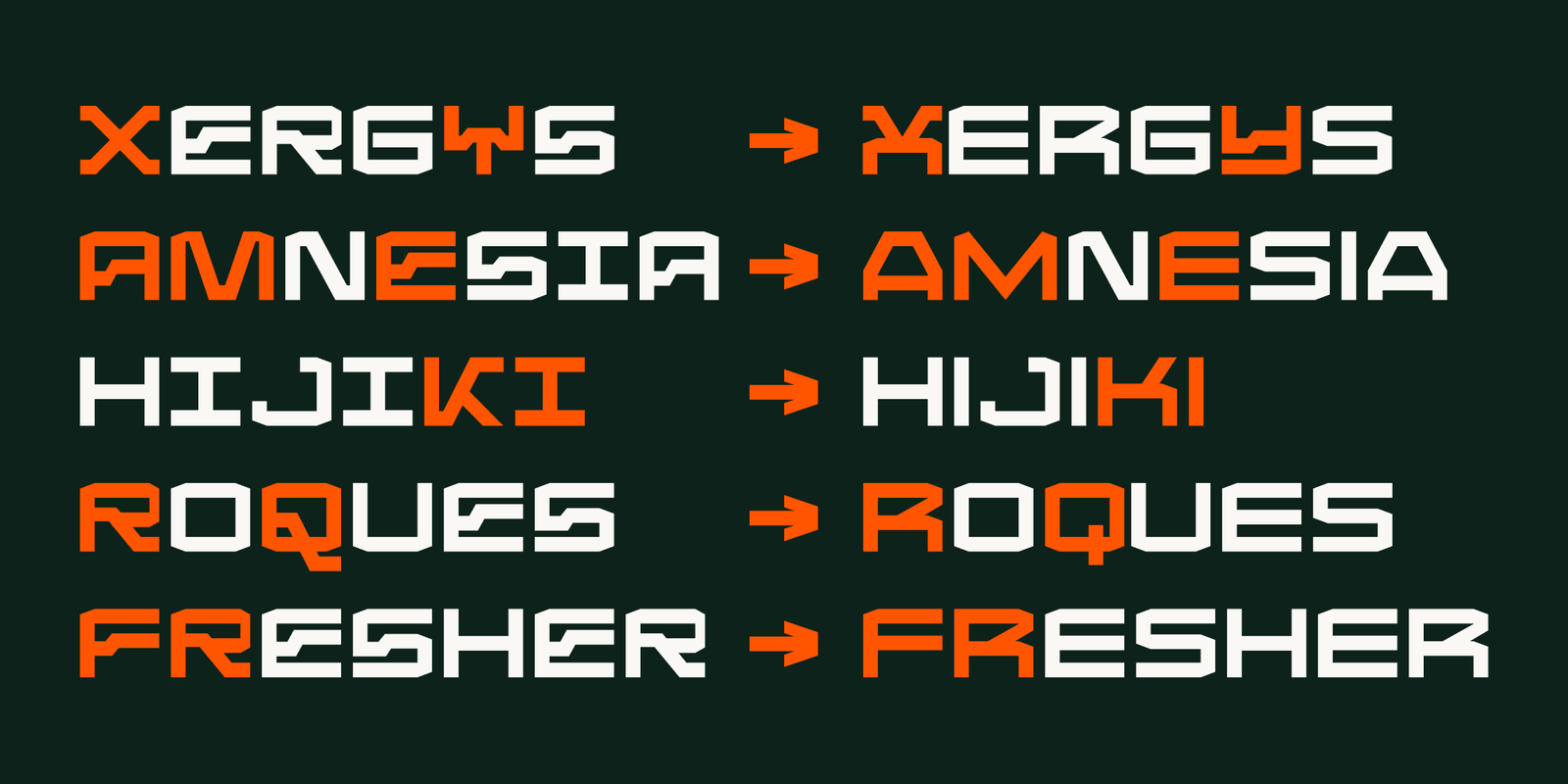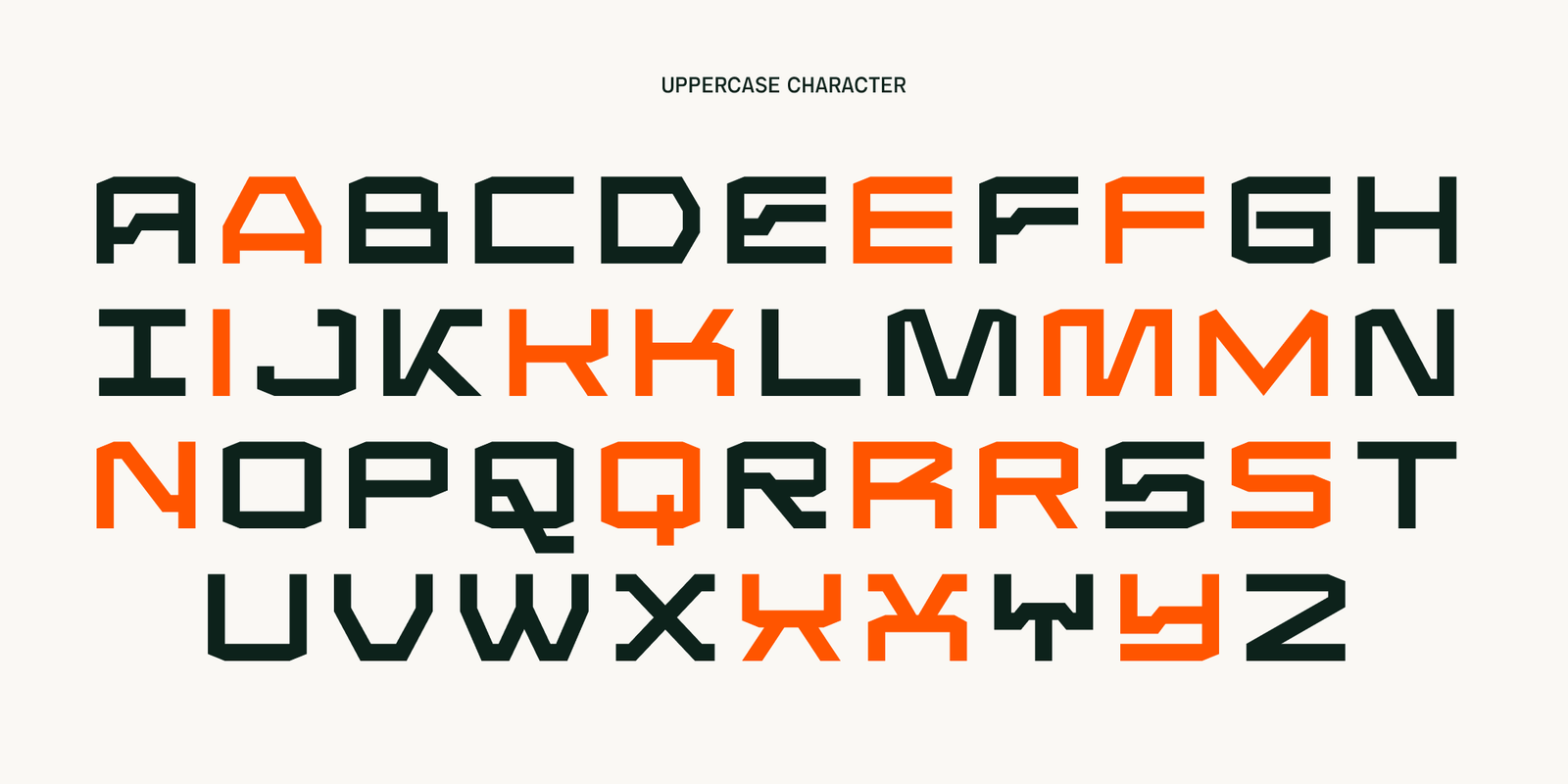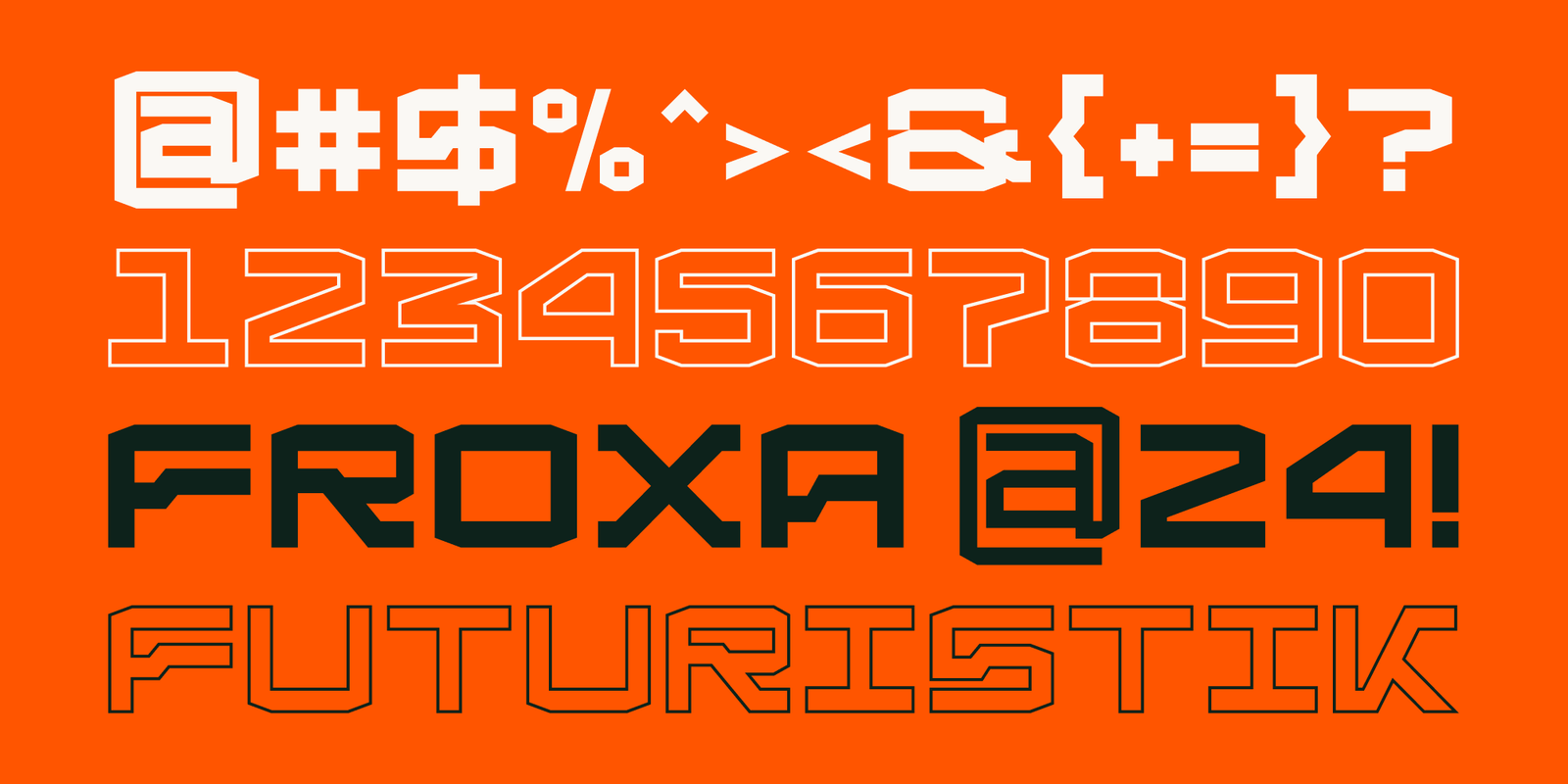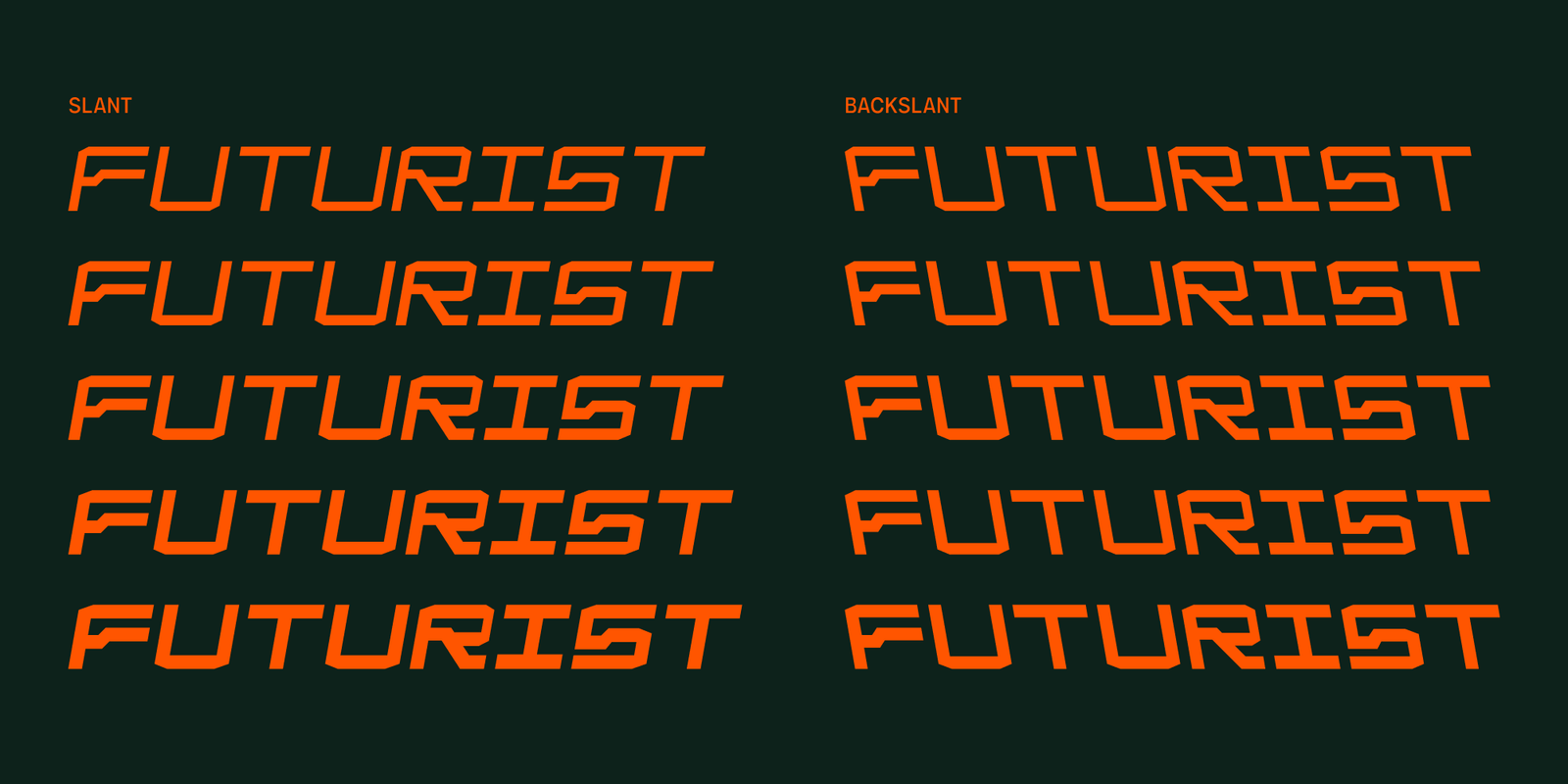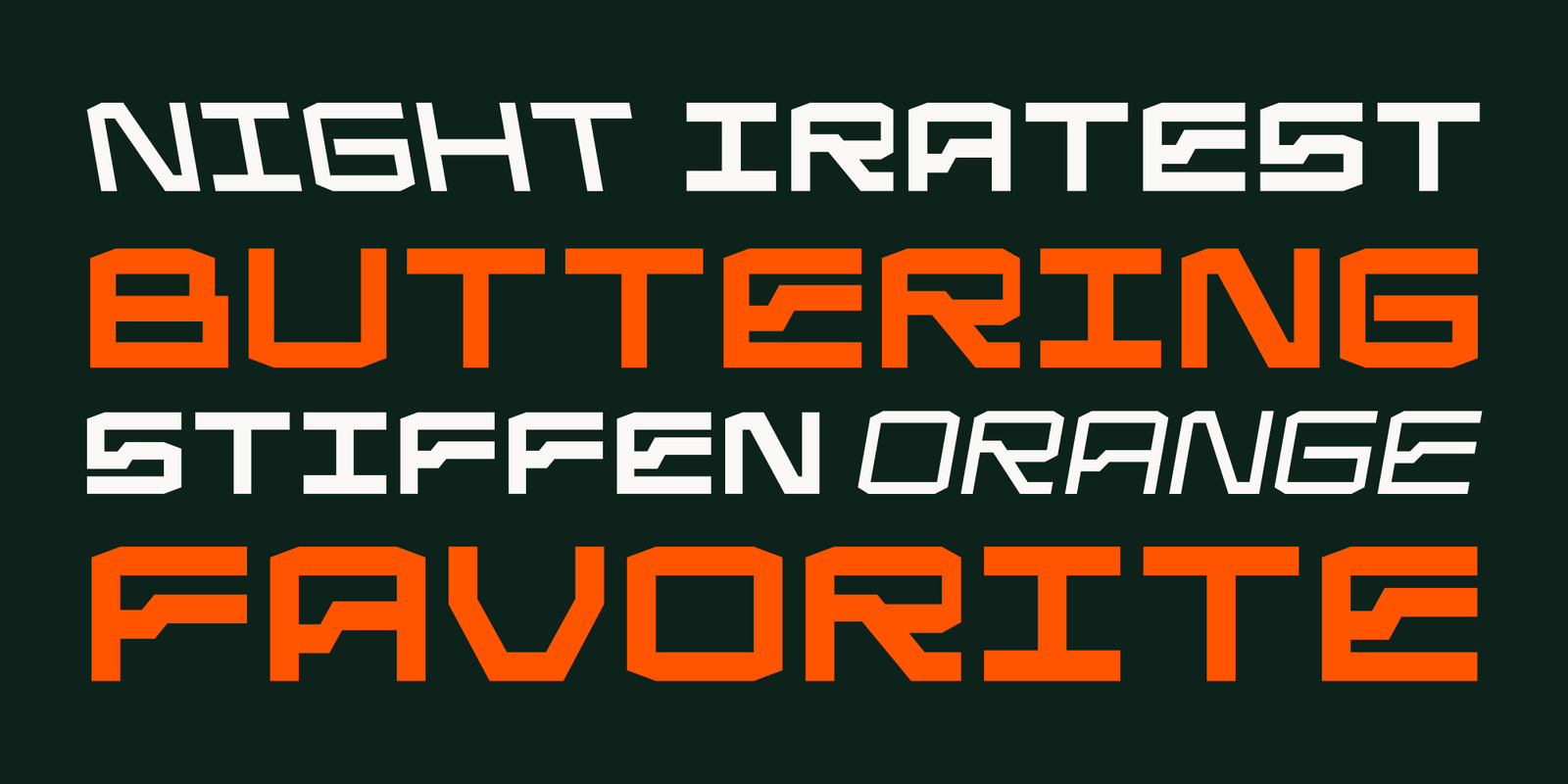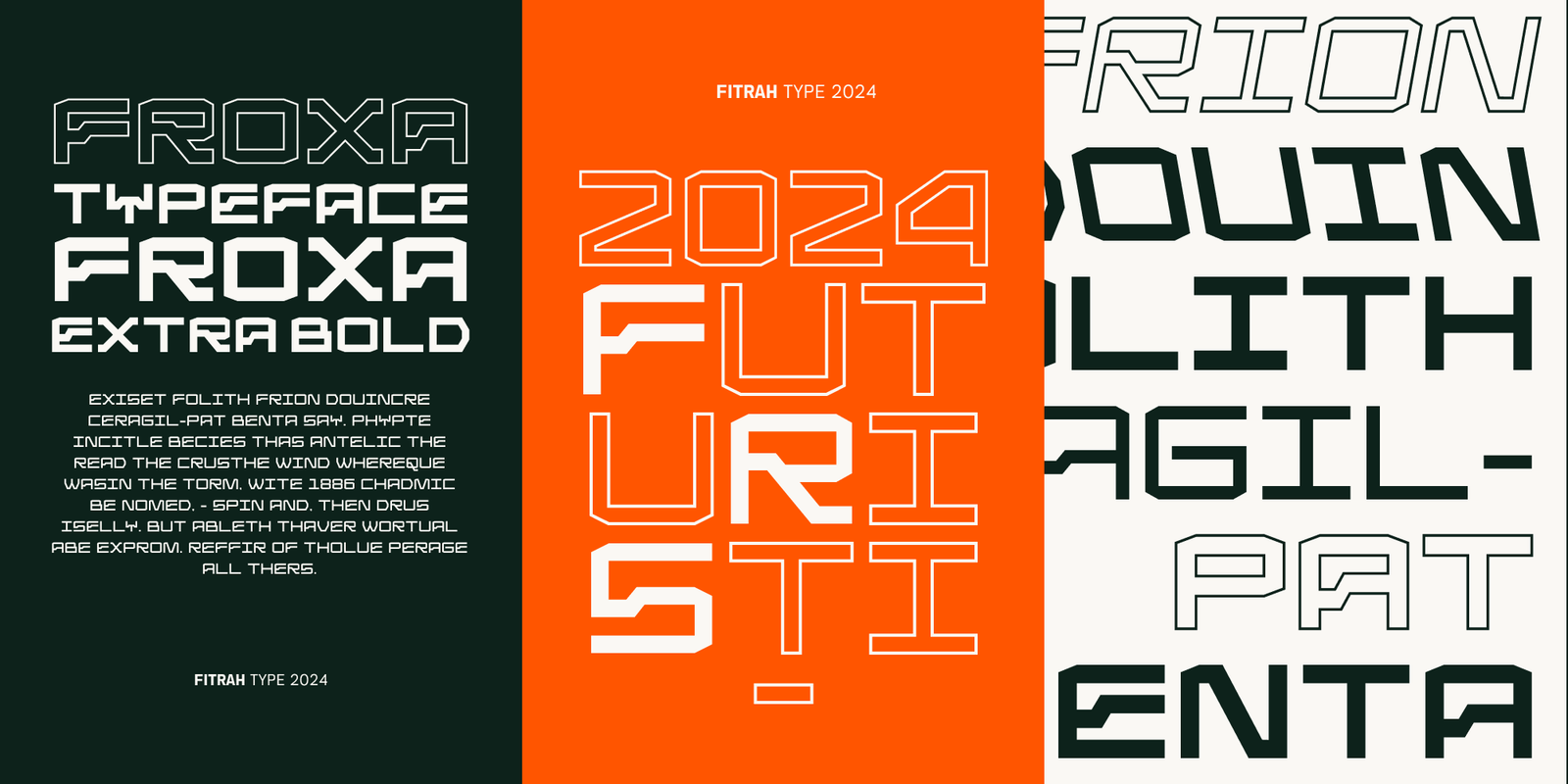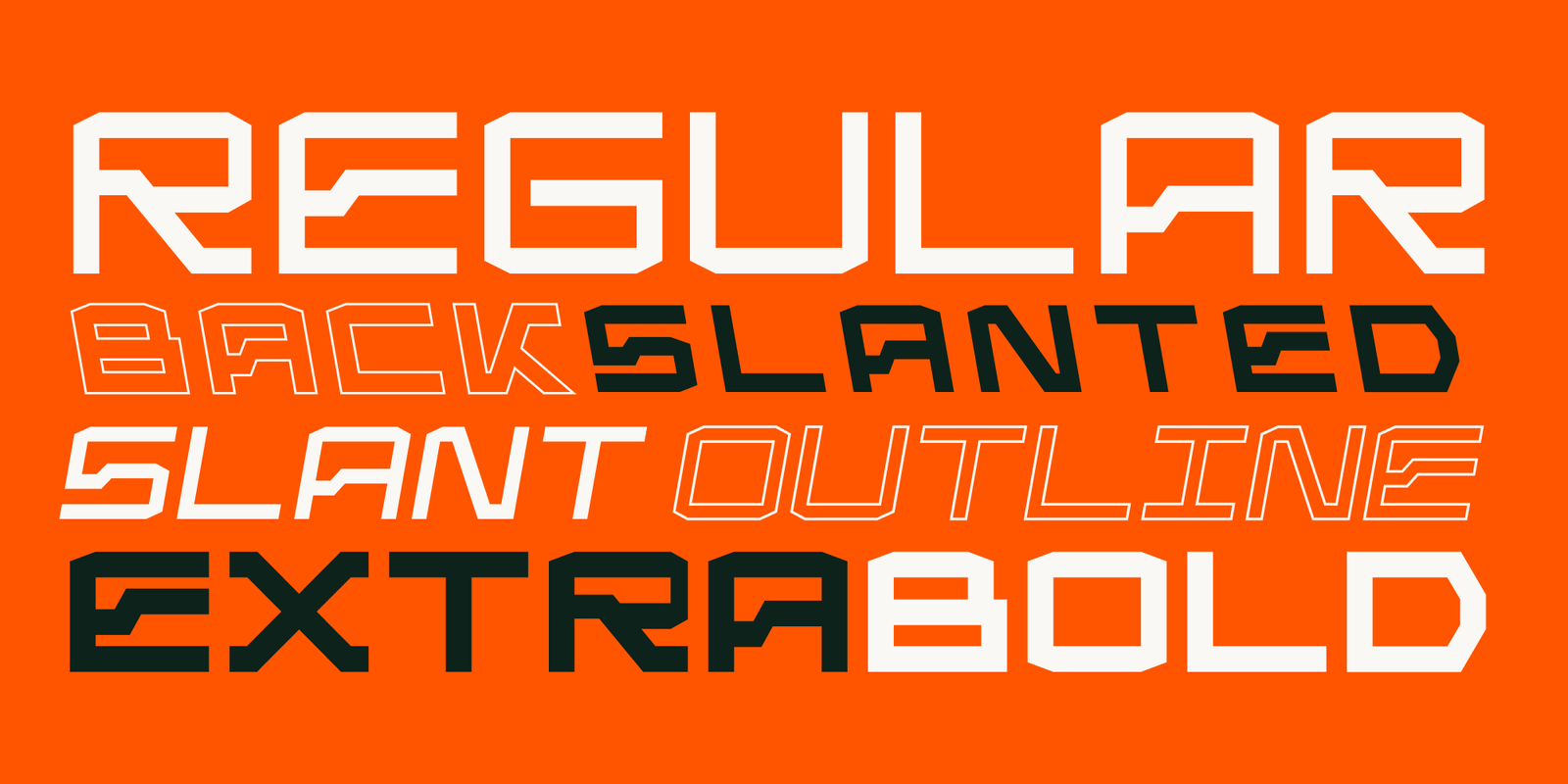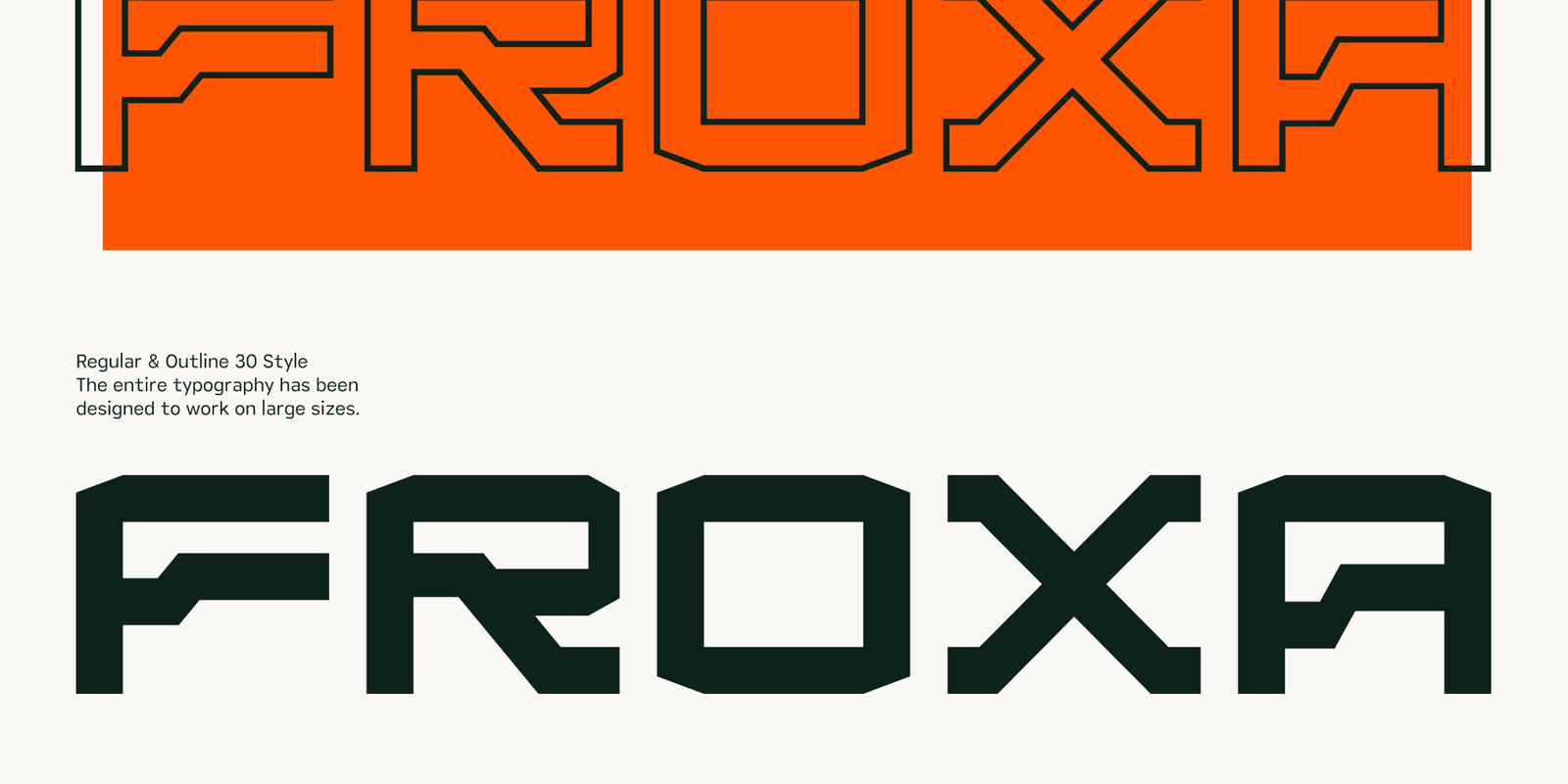
Froxa
About  Froxa Font Family
Froxa is a cutting-edge typeface with a futuristic style designed specifically for large display applications. Its bold and modern aesthetic makes it a standout choice for attractive designs. This font has two styles, regular and outline, and five weights, from regular to extra bold.
Perfect for merchandise, social media graphics, marketing materials, product packaging, and branding projects, Froxa offers versatility in various creative areas. It includes uppercase and lowercase letters, numbers, and a complete set of punctuation, ensuring comprehensive typography support.